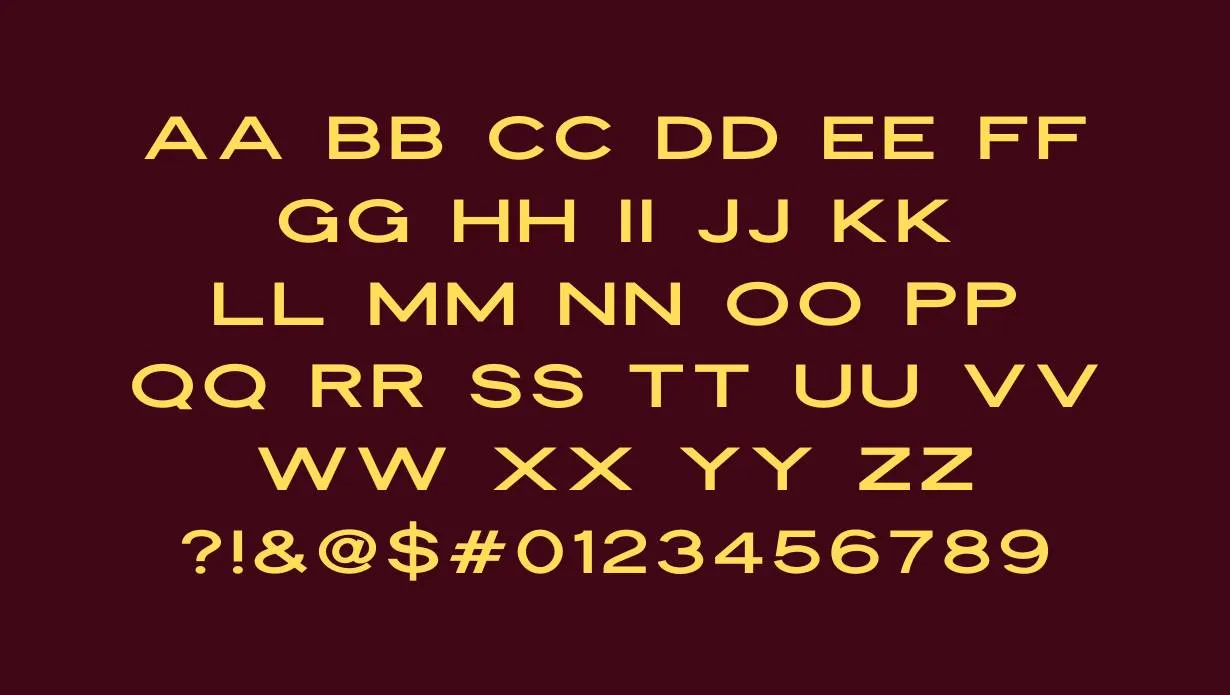
The Modena font is a stylish and sleek typeface that brings a modern touch to documents and designs. In MS Word, using Modena can elevate the look of titles, headings, or even invitations, giving them a sophisticated and professional appearance.
Adobe Photoshop, it’s great for creating sleek and contemporary graphic designs, like logos or branding elements. The font’s clean lines and elegant style make it ideal for businesses or projects that seek a refined and polished aesthetic.
| Name | Modena Font |
| Designer | Jen Wagner |